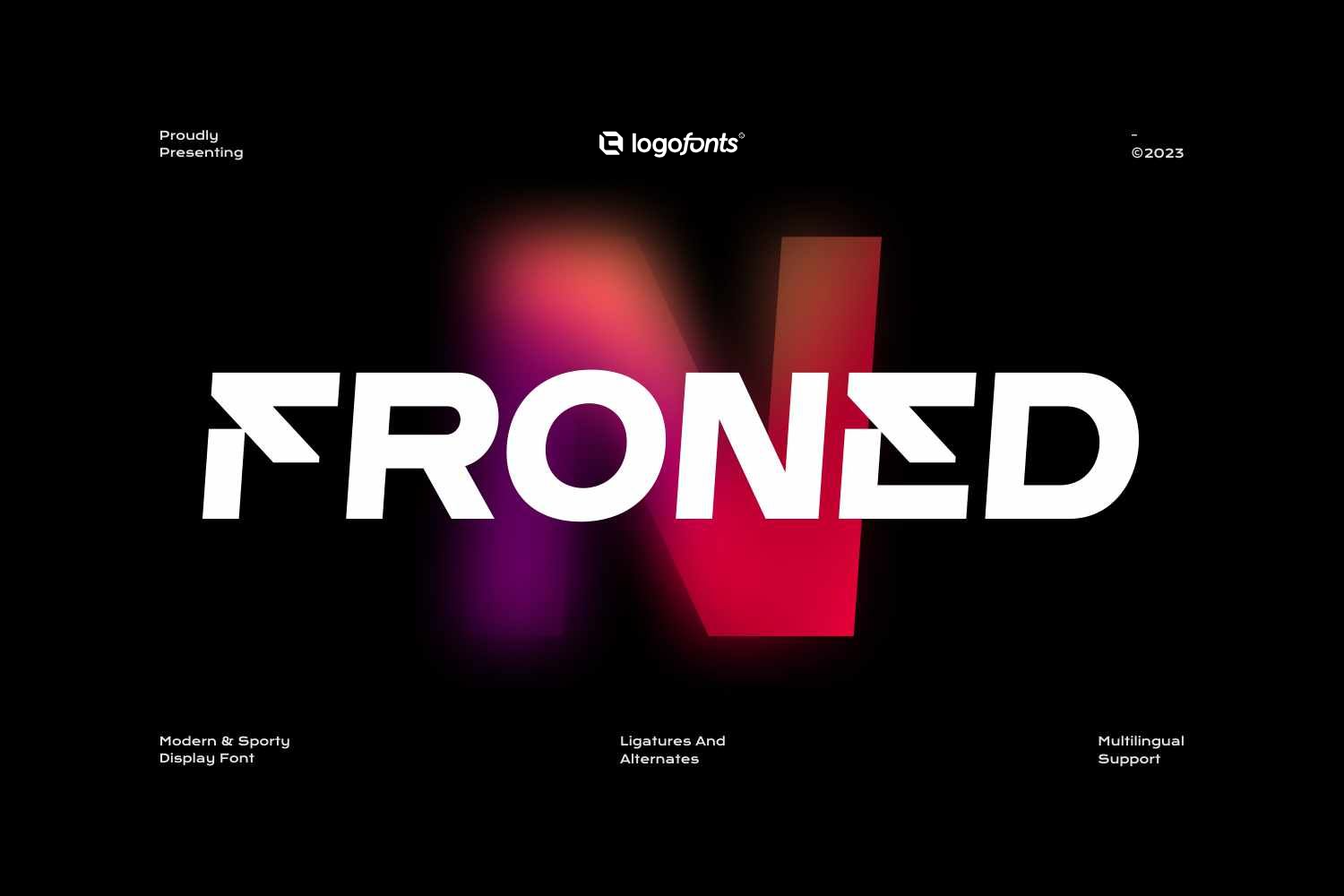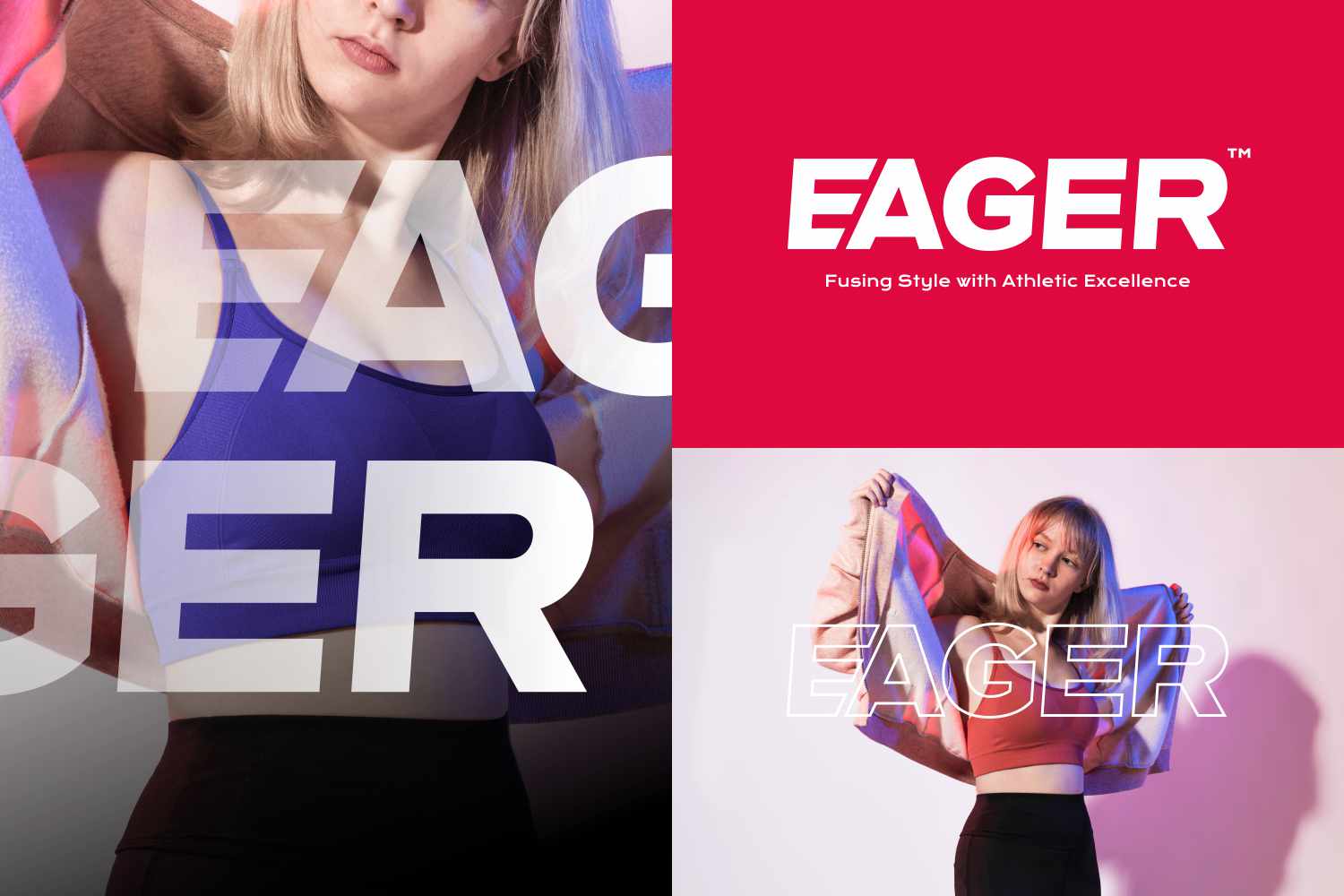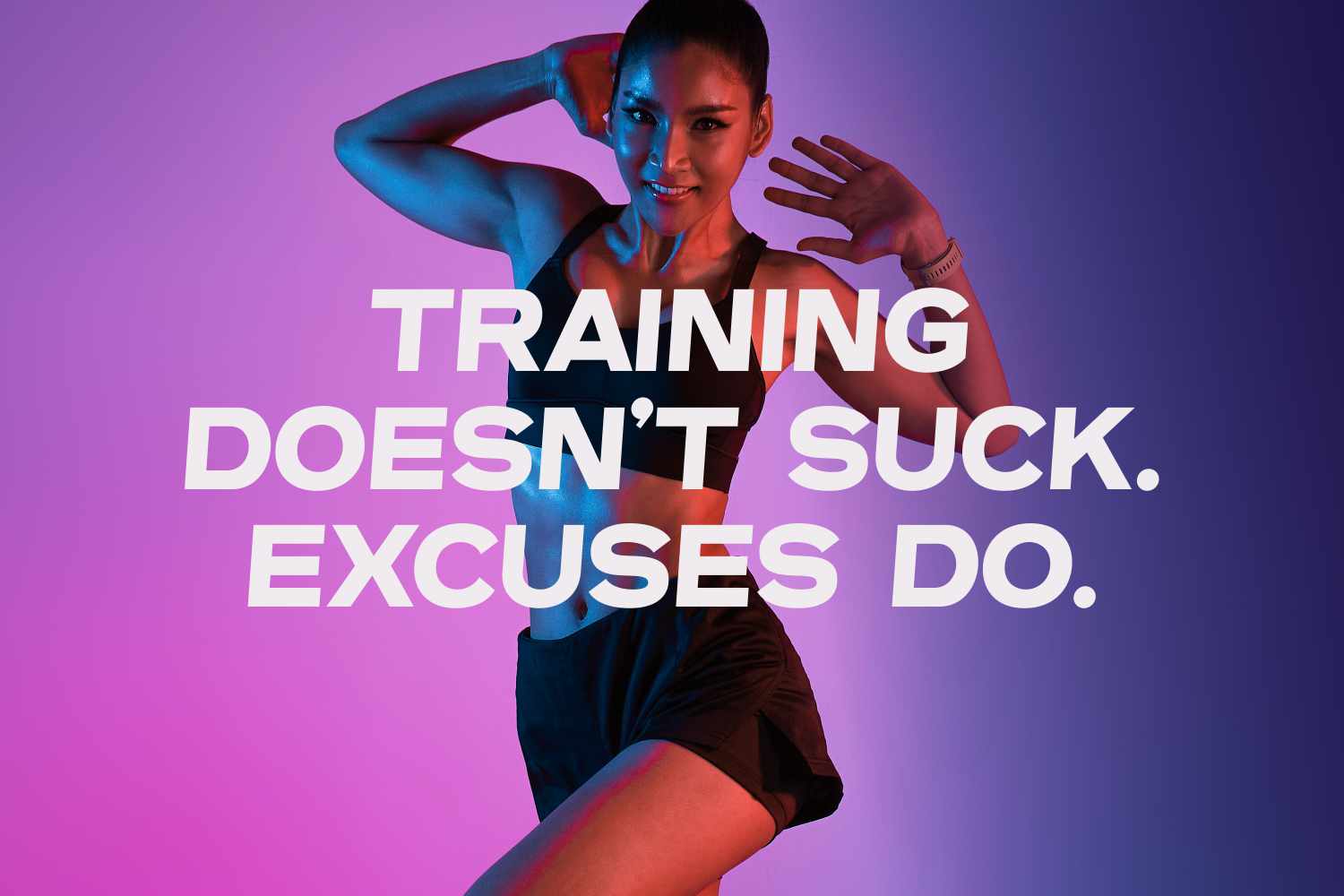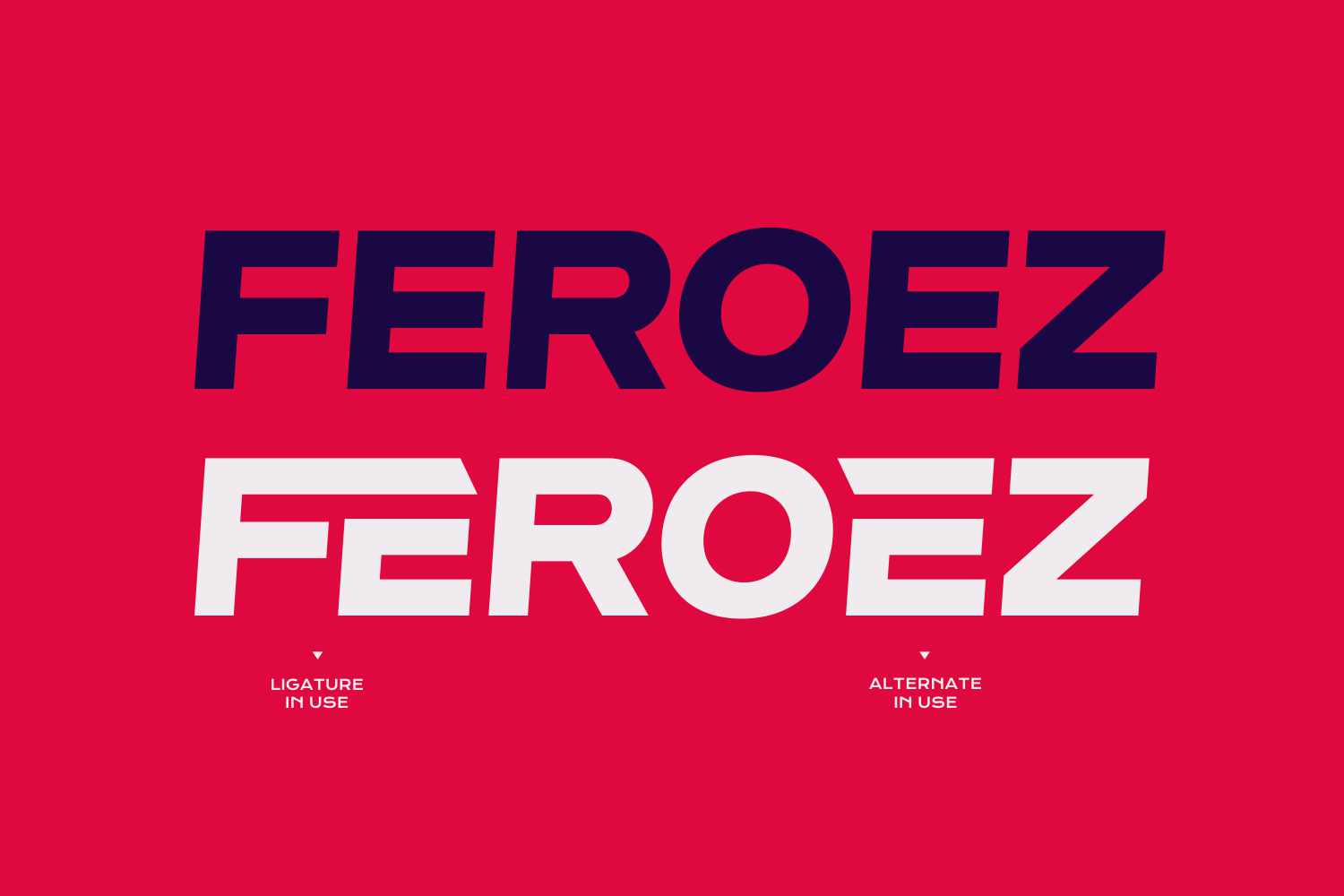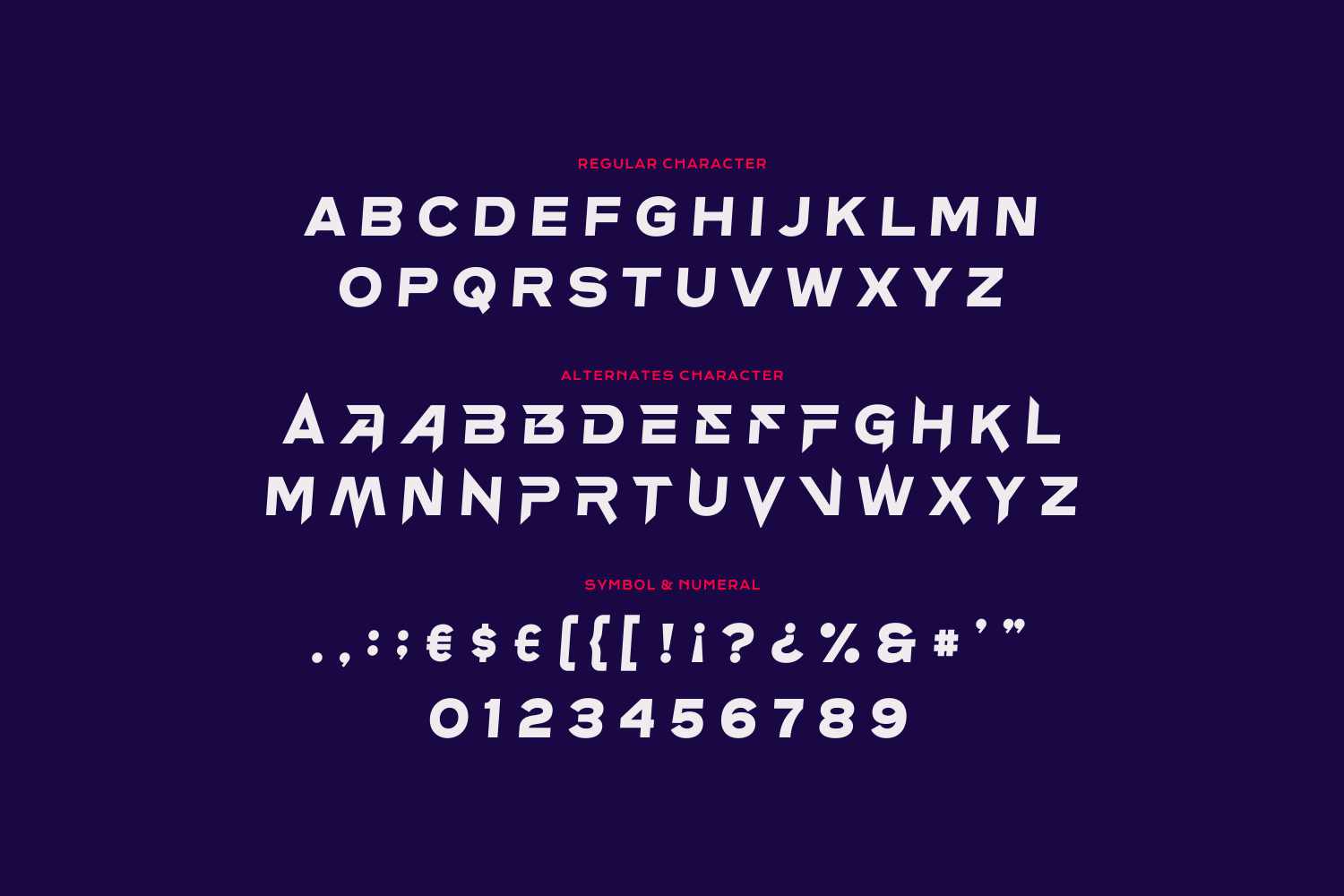
Froned is a modern and athletic display sans serif with bold styling and futuristic cuts. Designed with a strong geometric structure, angled terminals, and a high-energy attitude, Froned is perfect for branding that demands impact—whether in sports, fashion, automotive, or urban tech scenes. With all caps characters, multilingual support, and a set of creative alternates and ligatures, it offers maximum flexibility for bold headlines and standout visuals.
Its aggressive letterforms and modular shapes make Froned a great choice for high-performance apparel brands, fitness campaigns, or energetic product packaging. Whether used on posters, social content, or dynamic logos, Froned amplifies power, precision, and contemporary edge.
Froned